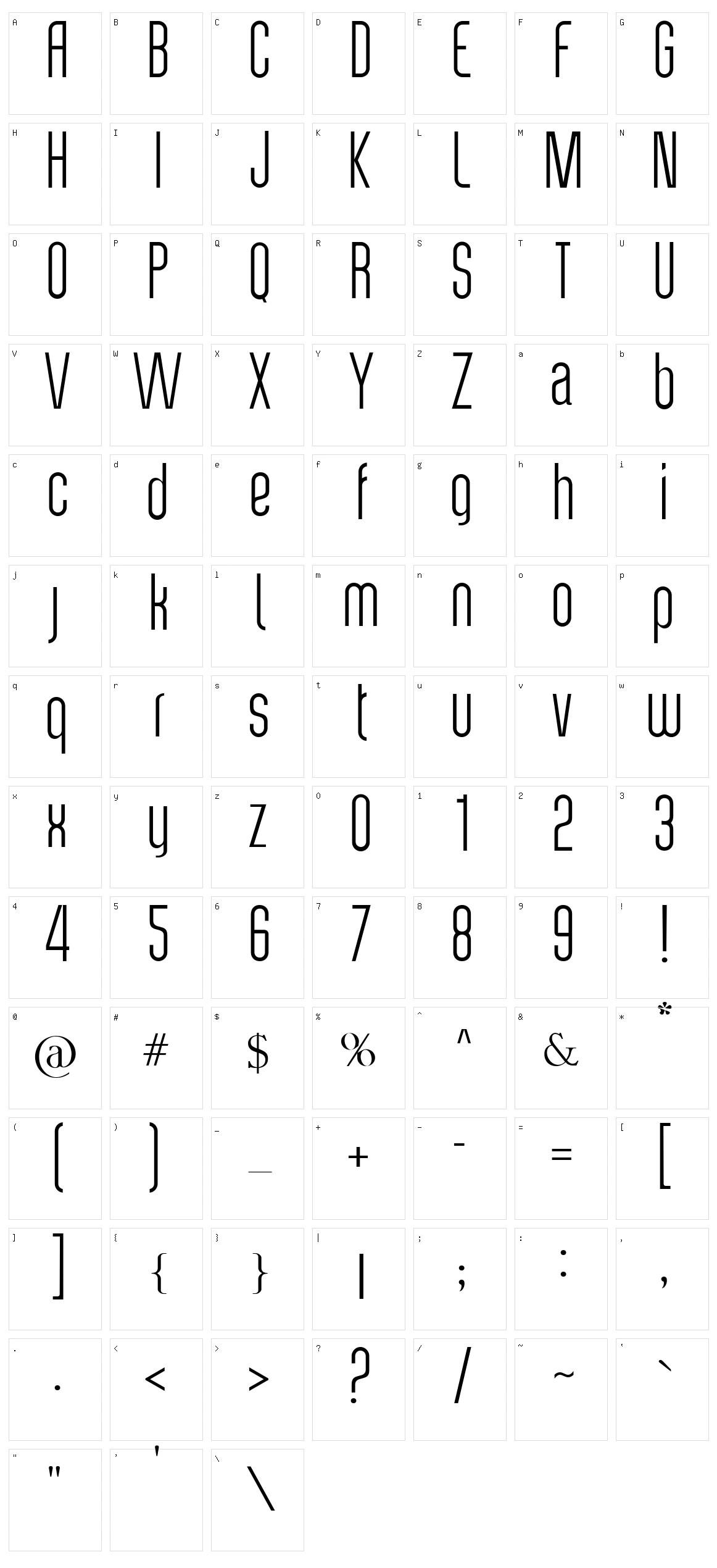
reproduction Display Font is a brand new display font.
reproduction is perfectly suited for stationery,
logos, t-shirt, paper, print design, website header,
photo frame, flyer, music cover, poster, image slider
and much more.